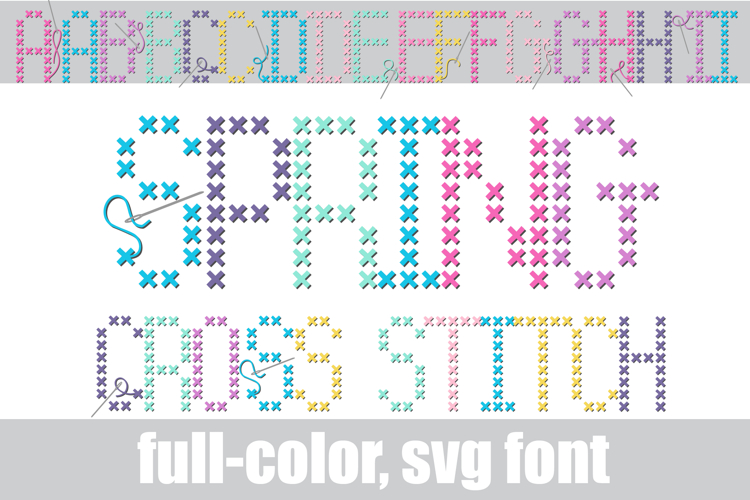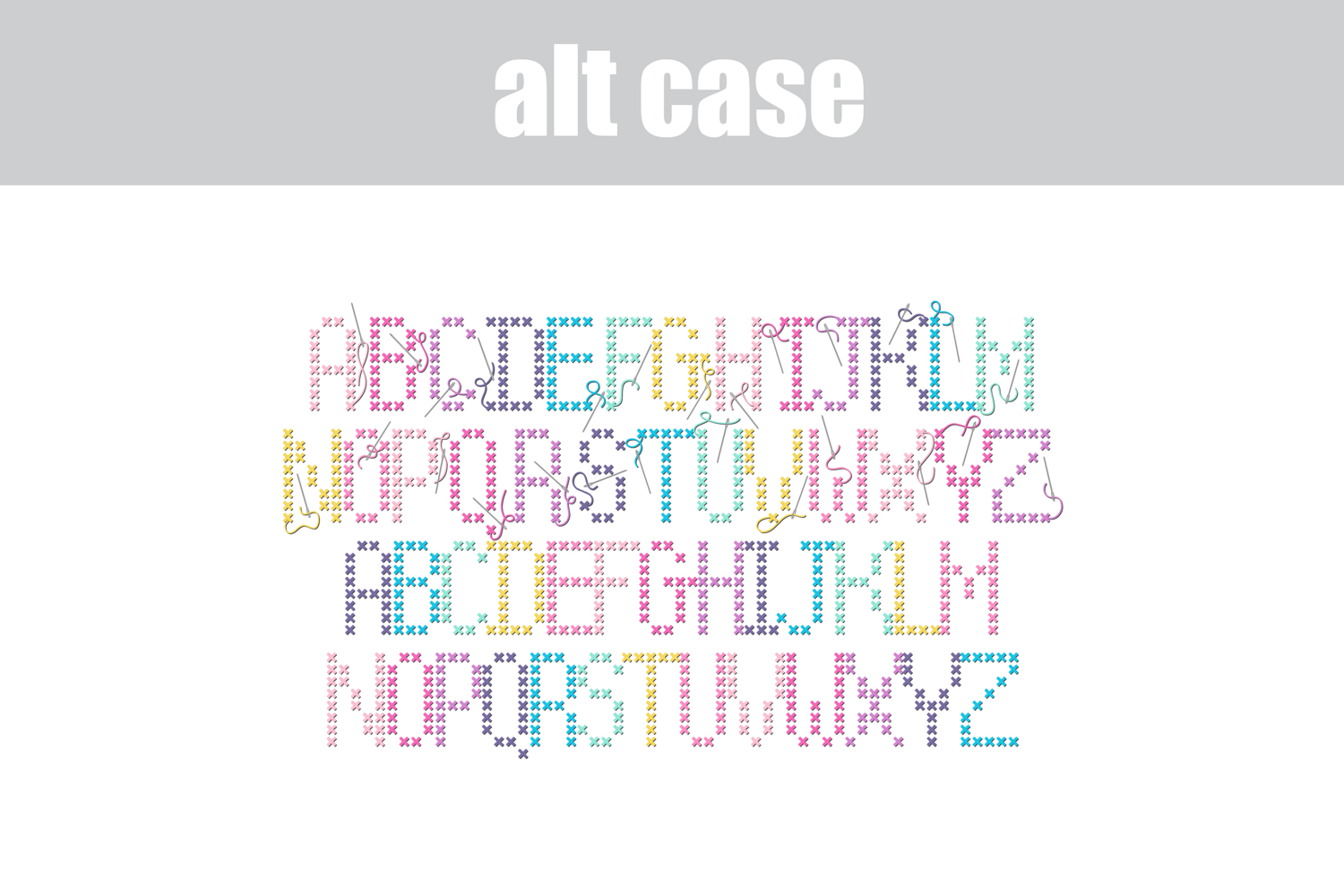
Spring Cross Stitch Color Font
This full-color, pastel-colored font features a cross-stitch style font with needles and threads. There is an alt case of each letter with a different color combination.